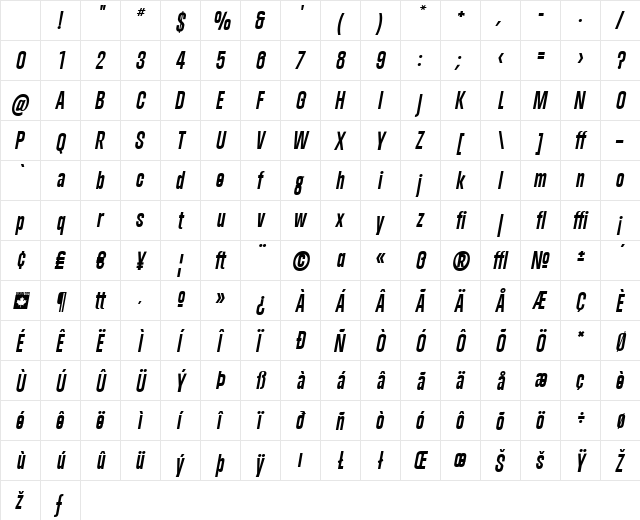
Complete Trump Gothic East Bold Italic glyph index. Displaying only characters natively supported by Trump Gothic East Bold Italic font.
Trump Gothic East takes a clean, functional approach - its unadorned letterforms prioritise legibility and work reliably across screen and print environments. The slanted form adds forward momentum and visual energy. Its bold stroke weight gives it real presence on the page.
Font Pairing: Use Trump Gothic East for headlines alongside a lighter-weight sans or serif for body copy to establish clear visual hierarchy.
Pro Tip: Use Trump Gothic East for UI labels, navigation, and short-form body copy where clean legibility is the priority.